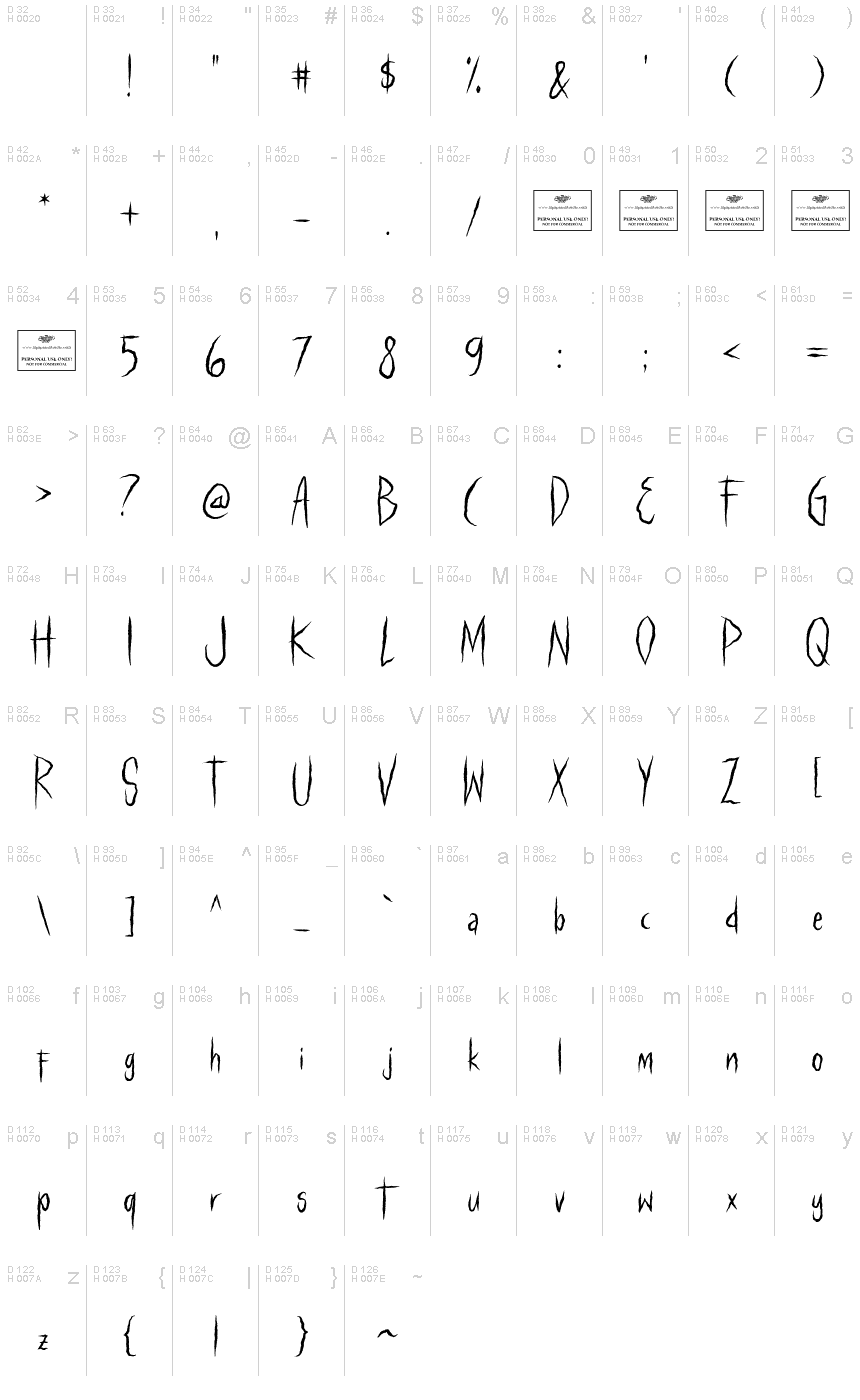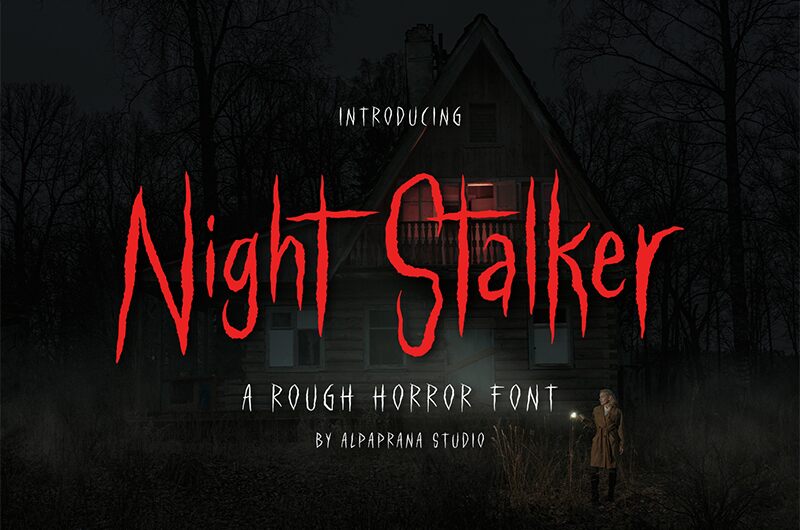
Night Stalker
Night Stalker, designed by Alpaprana Studio, is a display font that embodies the essence of fear. With its light weight and extra-condensed width, this rough horror font is perfect for creating a spine-chilling atmosphere in various design projects.
Whether it's branding, logo design, lettering, or logotype creation, Night Stalker will give your work a truly terrifying edge. Its versatility extends to clothing design, poster creation, magazine layouts, and packaging designs. Additionally, Night Stalker can be used to evoke terror in shopping bags and t-shirt designs. It is also well-suited for book covers that seek to captivate readers with its eerie charm. For photography projects or special events that require an element of darkness and mystery, Night Stalker will add an unsettling touch.
Let this font unleash your creativity and create unforgettable designs that will haunt the minds of viewers.